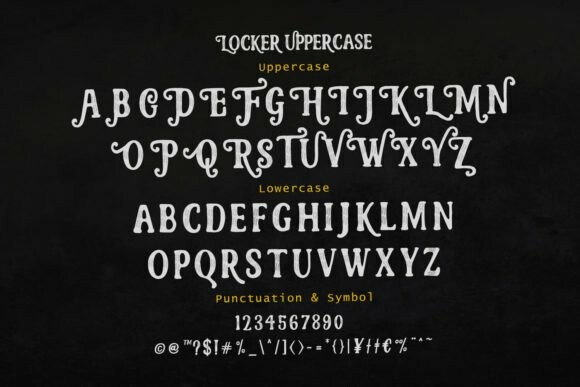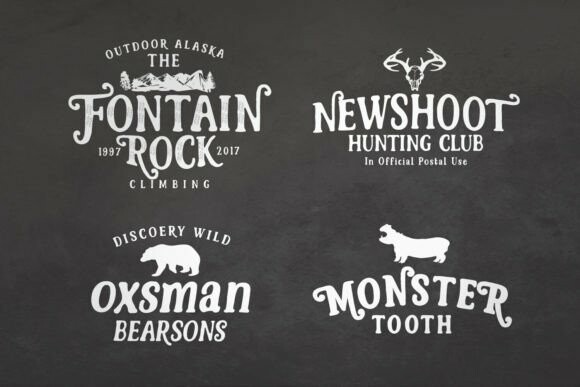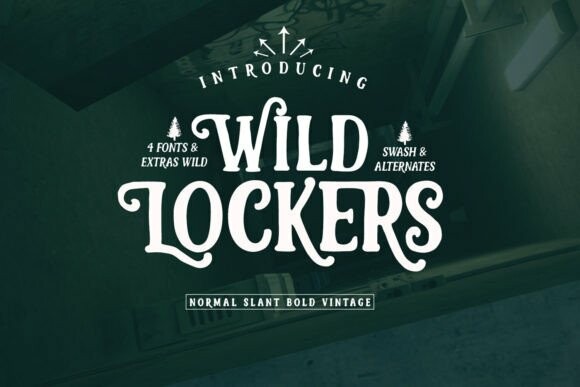
Wild Lockers Font
Designer: fontasticlab
Wild Lockers Font. Now this is a collection of inspiring letters designed handwritten casual and elegant, resembling handwriting, and is seen to flow. May be an inspiration to you and encourage us all to make the design more interesting of course.